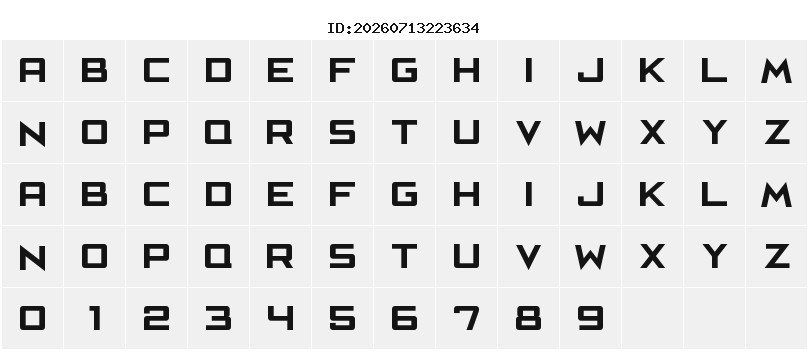
• Font Name: Cafe Nero M54
• Full Font Name: Cafe Nero M54
• Designer: Mohammed Rahman
• Manufacturer: M54 (justme54s)
About Cafe Nero M54.ttf
Cafe Nero M54.ttf is a modern, elegant sans-serif font designed for ultimate readability and visual harmony. Perfect for branding, headlines, web design, and print materials.